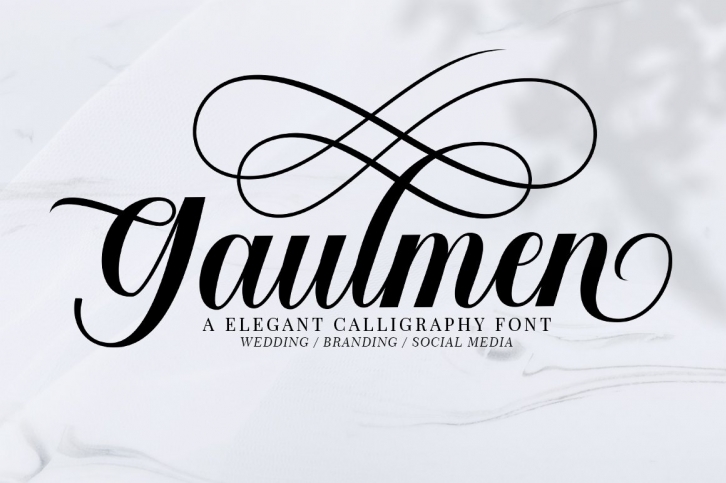
Gaulmen Script FONT Download
INTRODUCING
The latest styles Gaulmen Script with the kind of modern calligraphy font, I hope you are interested in this font, if you want to use for your work this font can be used easily and simply because there are a lot of features in it to contain a complete set of letters lower and uppercase letters,assorted punctuation, numbers, and multilingual support. this font also contains several ligatures and alternate style Stylistic Sets for those of you who have software that is able to work OpenType (Photoshop / Illustrator / InDesign).
• Gaulmen Script Regular
• Gaulmen Script Slant
Gaulmen Script is suitable use for market design developed at this time, this font has a model Trendy, natural and gentle, with this font you can take advantage of the opportunity in every moment of one wonderful way to highlight the celebration of the feast of your best, because this font will be advocates for purposes such as wedding invitations, party, graduation, birthday, gathering, etc.